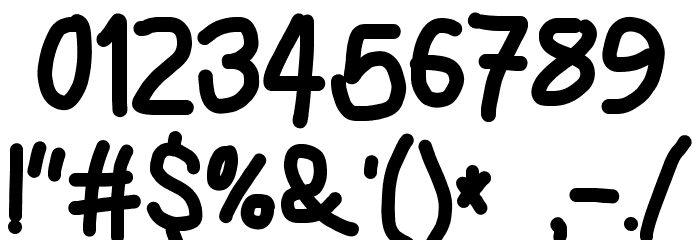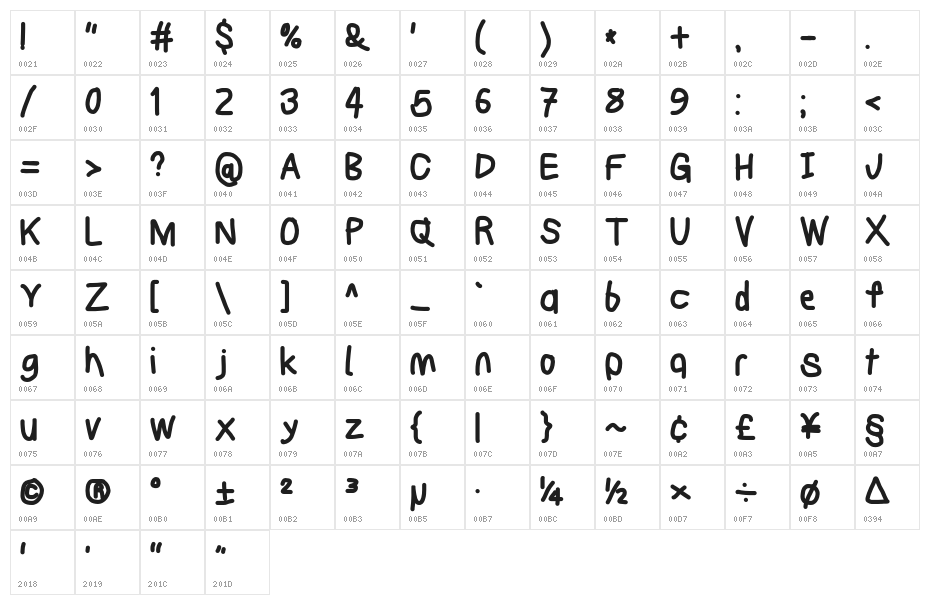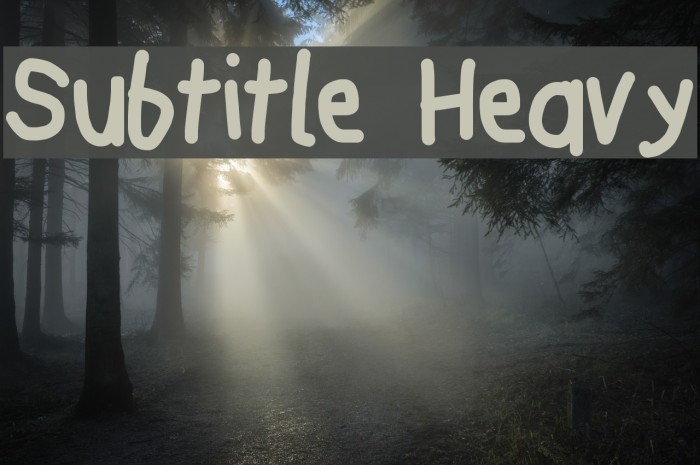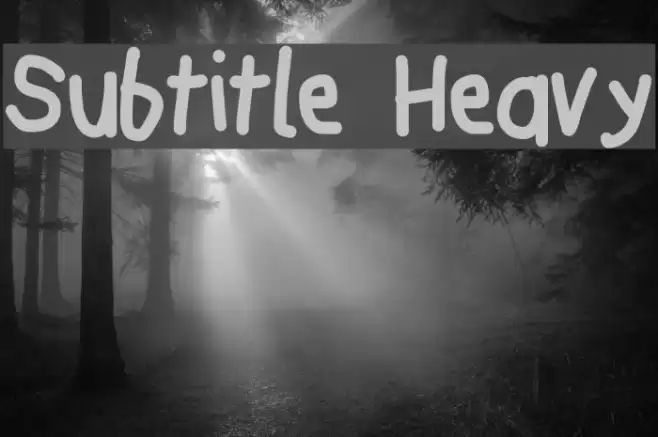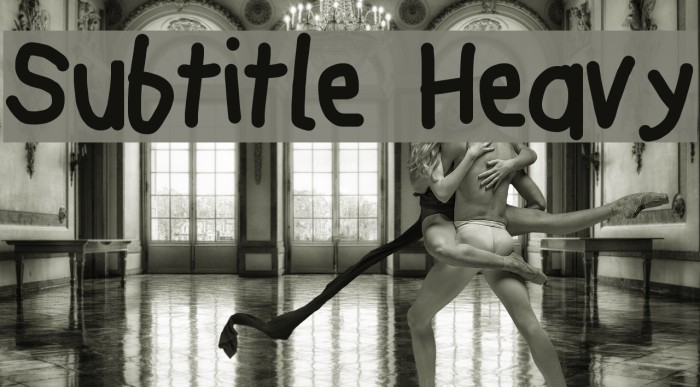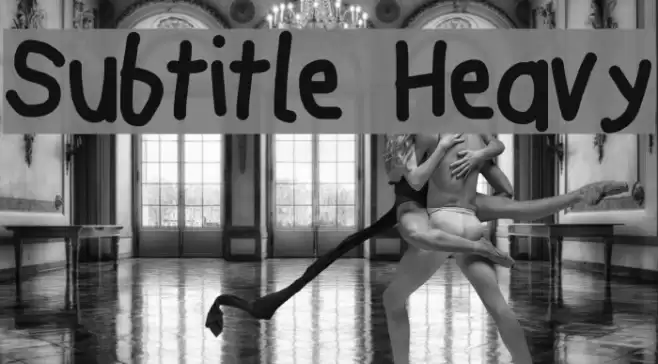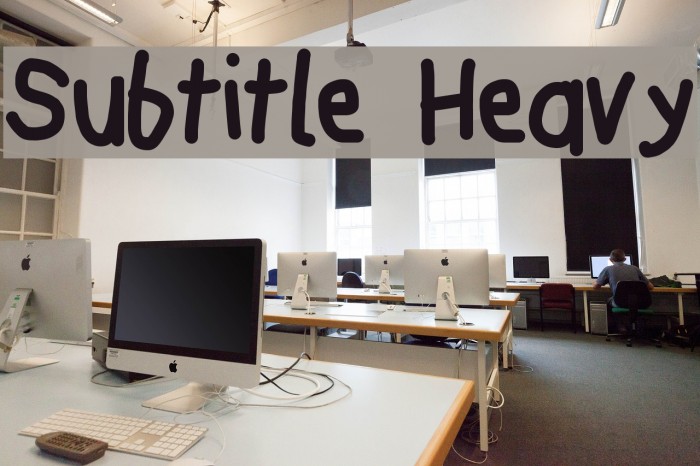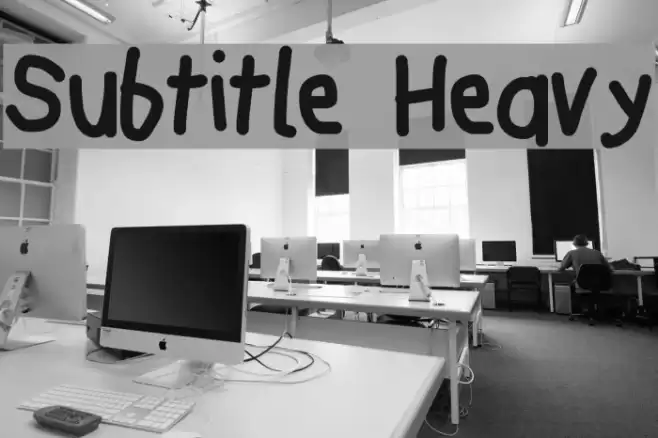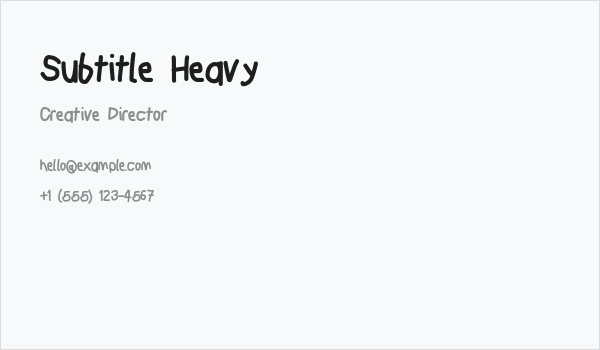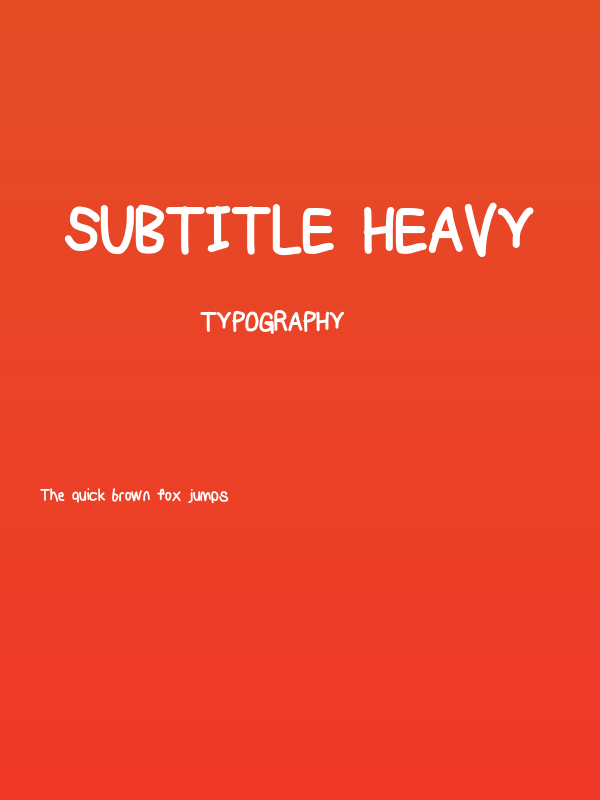
Subtitle Heavy Font
Subtitle Heavy Description
This playful and bold font features rounded, thick strokes that give it a friendly and approachable appearance. The characters are slightly irregular, adding a hand-drawn feel that enhances its casual style. The uppercase and lowercase letters maintain a consistent weight, while the numbers and special characters complement the overall design. This font is perfect for projects that require a touch of whimsy and creativity, making it ideal for children's books, playful branding, and informal communication. Its legibility and distinctiveness ensure it stands out in both print and digital formats.